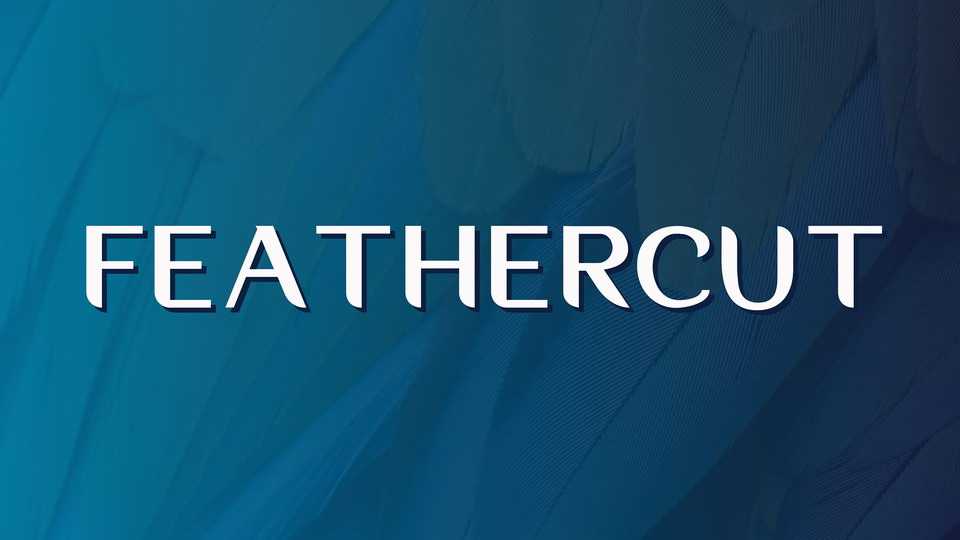
Download Feathercut typeface, a classy, elegant and sophisticated sans serif font family in seven styles. The typeface has medium contrast and feather-like cuts.
Designer: Rutwa Maharaul